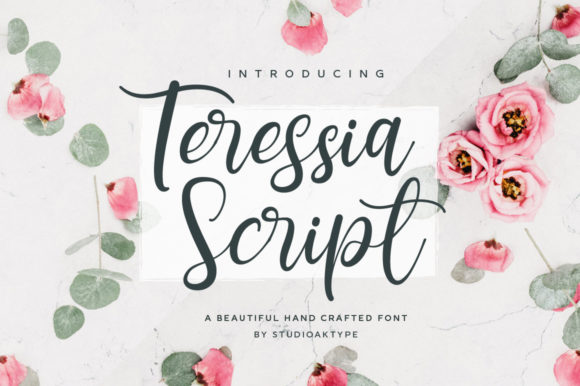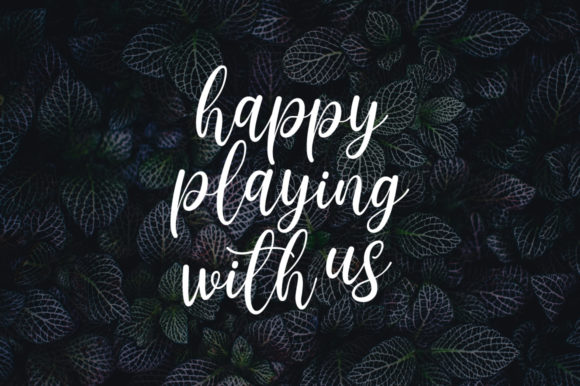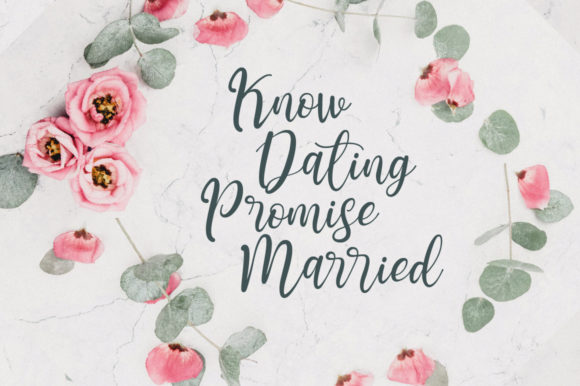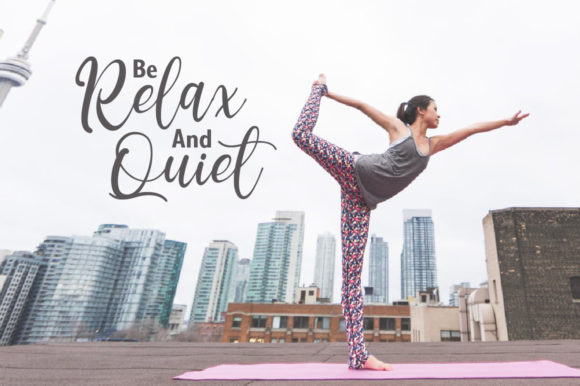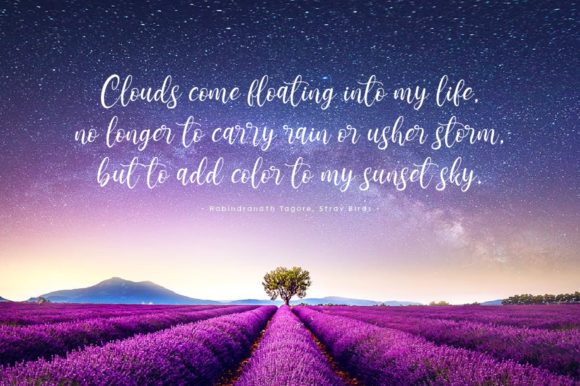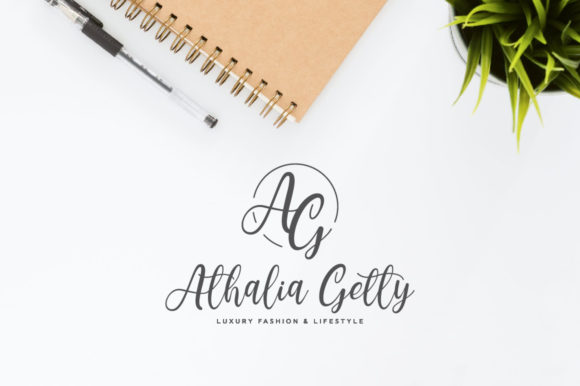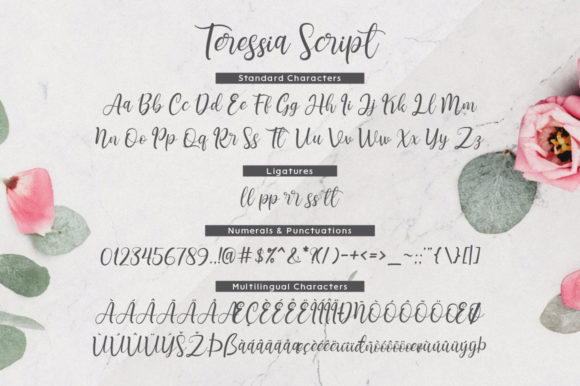
HomeScript FontsTeressia Script Font Script Fonts Teressia Script Font FacebookXPinterestWhatsApp Teressia Script Font Poster 2 Teressia Script Font Poster 3 Teressia Script Font Poster 4 Teressia Script Font Poster 5 Teressia Script Font Poster 6 Teressia Script Font Poster 7 About Teressia Script Font Teressia is a beautiful handwritten font with natural shades. It will add a beautiful flow to any design idea! DOWNLOAD NOW People also explored Steaming Grill Font Cardova Font Radiantly Font Unicorn Sparkles Font Love Mama Font Sabian Valent Blues Anthem Font Sweet Dating Font Smoking Font 301 0 TagsTeressia Script Font Previous articlePoppy Shower FontNext articleSelectric Script Font LEAVE A REPLY Cancel reply Comment: Please enter your comment! Name:* Please enter your name here Email:* You have entered an incorrect email address! Please enter your email address here Website: Save my name, email, and website in this browser for the next time I comment. Personal Use Free Thruster Personal Use Free Read more about this font Deling Personal Use Free Read more about this font Deftone Personal Use Free Read more about this font Monogram Calligraphy Personal Use Free Read more about this font BLOG Best Fonts for T-Shirt Design – Top 2025 Picks In 2025, t-shirt design has become more than just fashion—it's a form of self-expression. Whether you're... Best Fonts for YouTube Videos: Make Your Thumbnails Stand Out Exploring Font Trends Free Fonts Risk: Why Free Fonts Can Be Dangerous for Designers